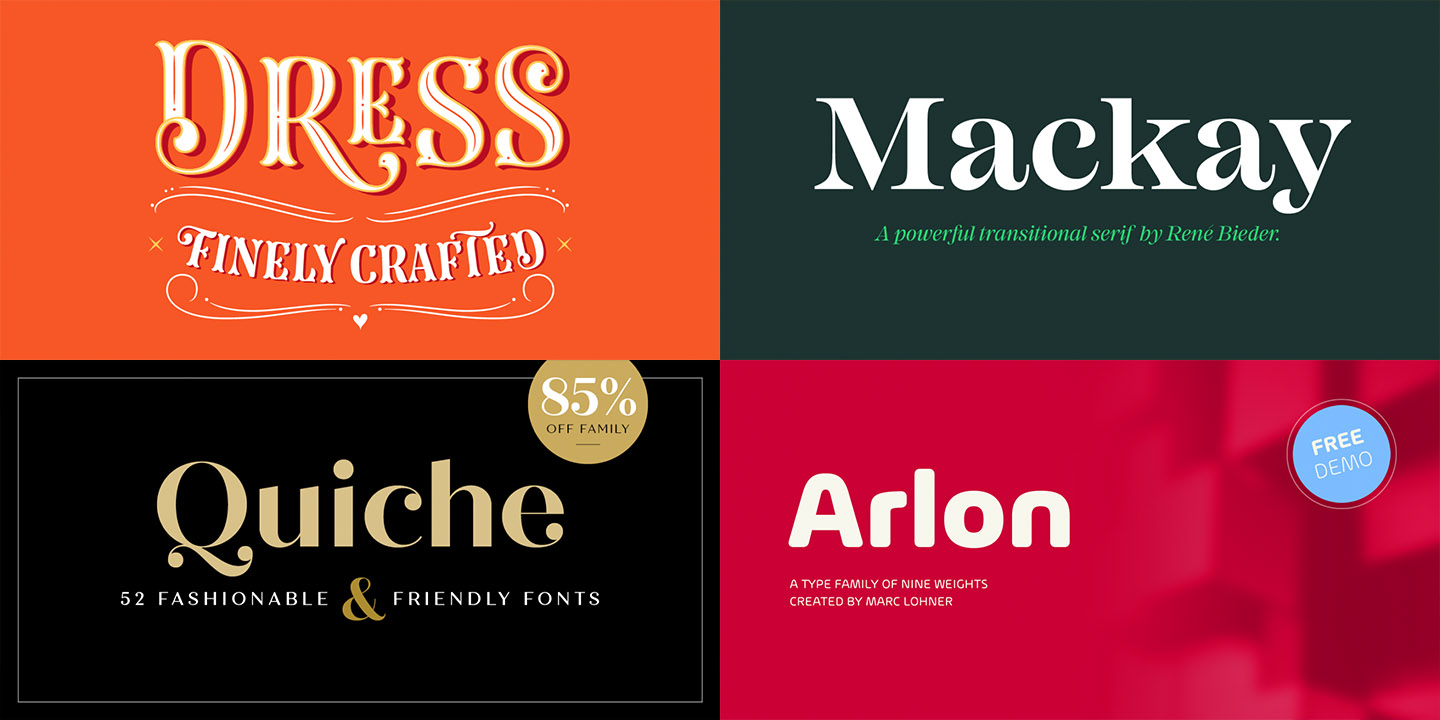
Inspired by late 19th-century lettering, Dress would feel right at home on the cover of a classic novel. Customize it with layered elements, flourished capitals and inline decoration for the perfect fit. |
The future looks warm and friendly with Arlon. Its state of the art squared letterforms give this family a strong structure that is balanced out by soft and rounded features. |
Arlon Marc Lohner
Two spaces, or not two spaces, that is the question. One space after a period has recently become the standard in typing. Avi Selk of The Washington Post investigates and weighs in on this shift in typing standards.
Arby’s has put their own unique spin on the bespoke typeface trend with Saucy AF. This free yet sloppy novelty font is a tongue-in-cheek marketing campaign inspired by “the ink of the sandwich world”: sauce packets.
Ben Zotto takes a look back at Susan Kare’s original 80s and 90s Macintosh bitmap typefaces and uncovers a few hidden sheep in the process.